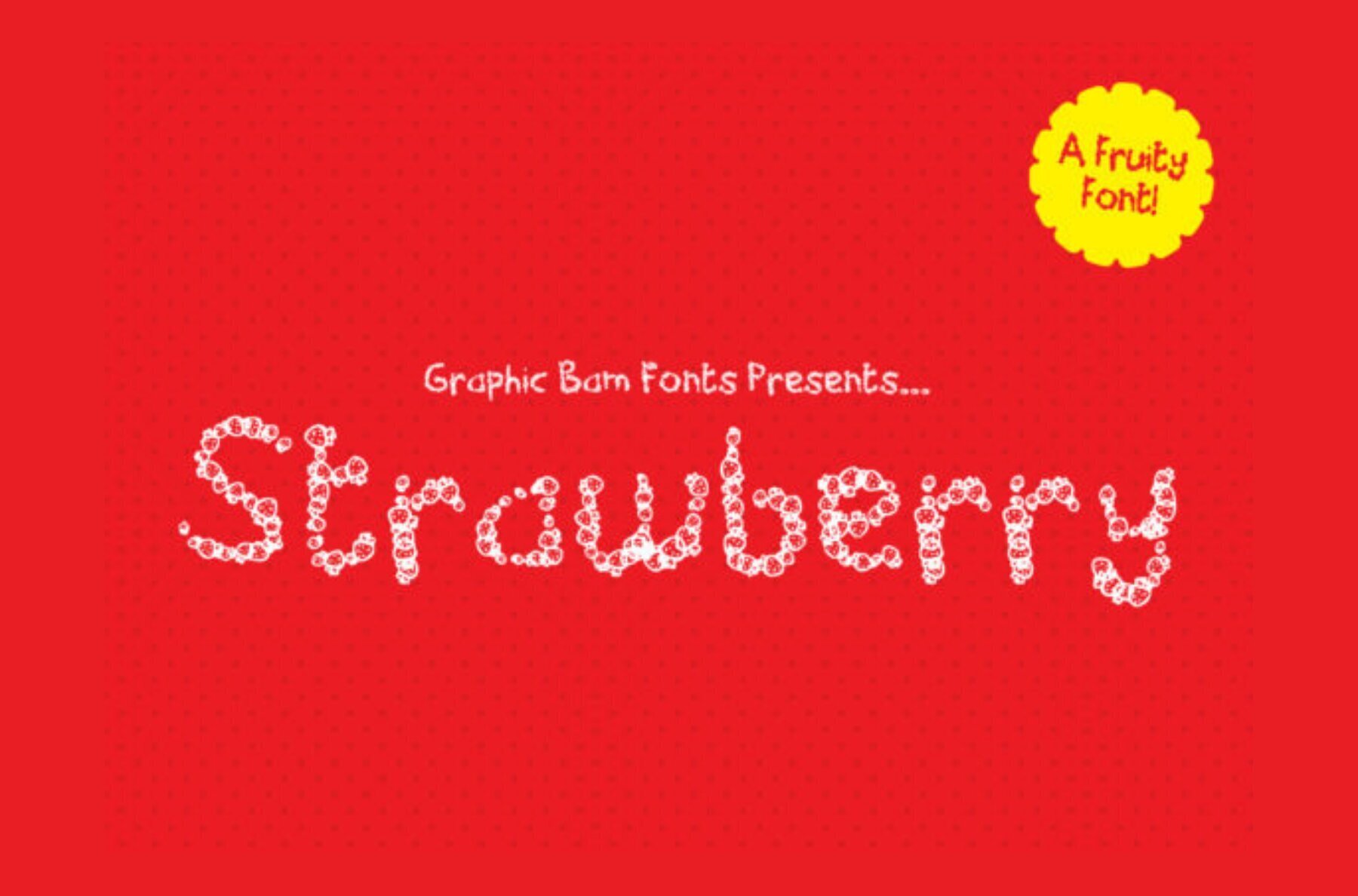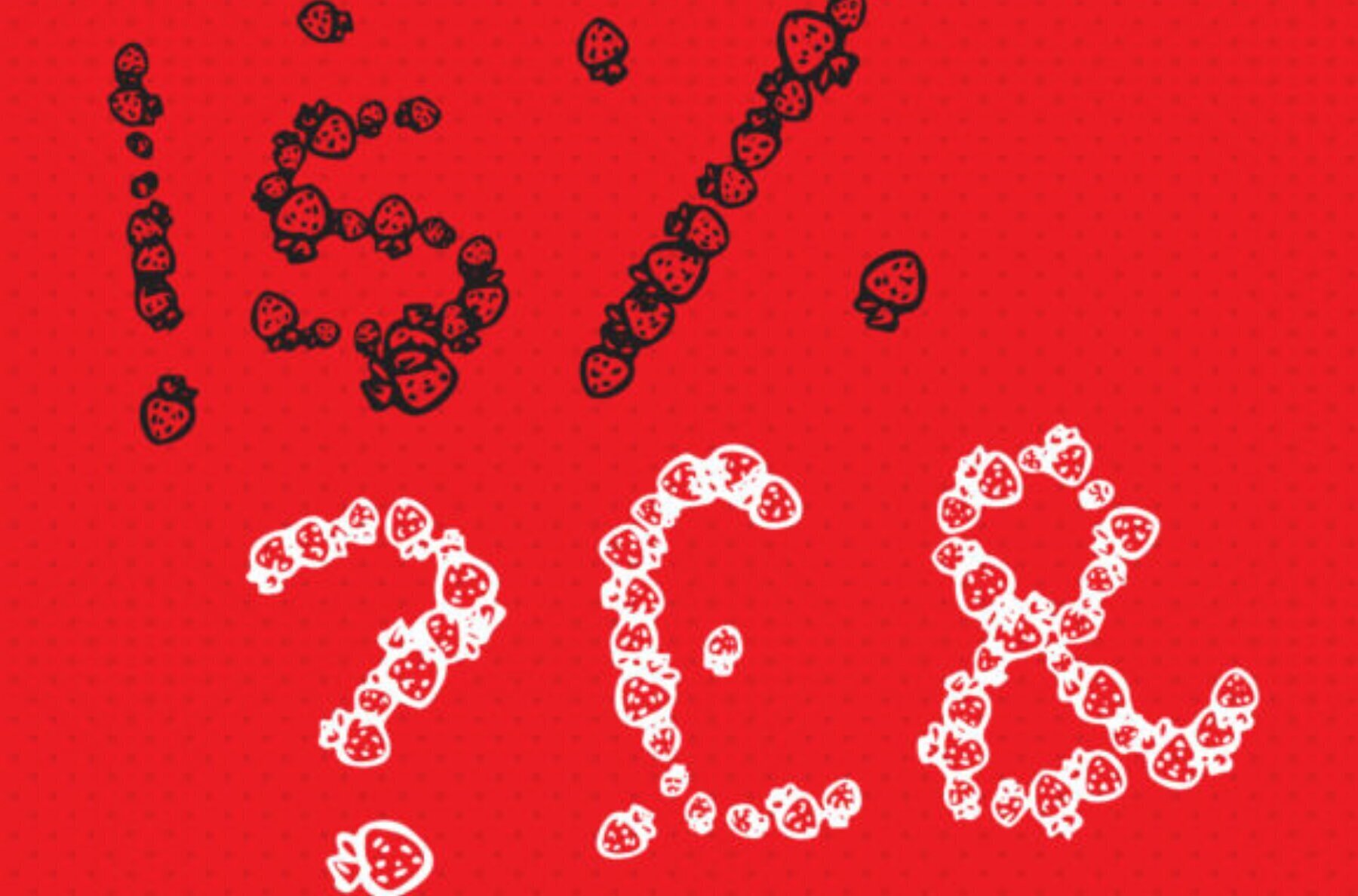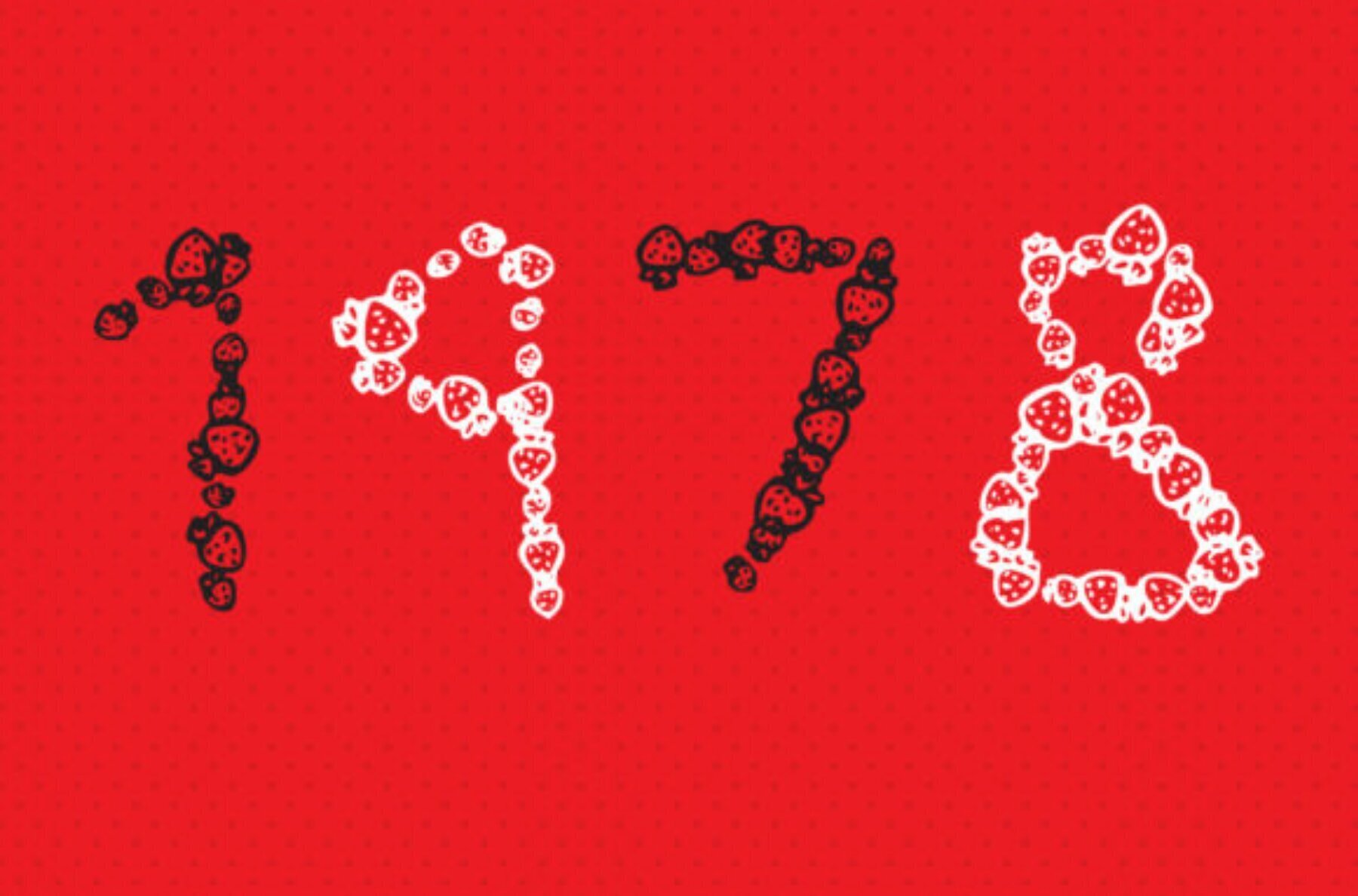
Strawberry Font
Strawberry
Strawberry brings a delightful twist to any project with its charming hand-drawn strawberry design. Perfect for adding a touch of whimsy, this font is ideal for children's crafts, school presentations, or any project needing a fun, playful vibe. Embrace the uniqueness of Strawberry to elevate your creative endeavors.Strawberry: A Playful Display Font